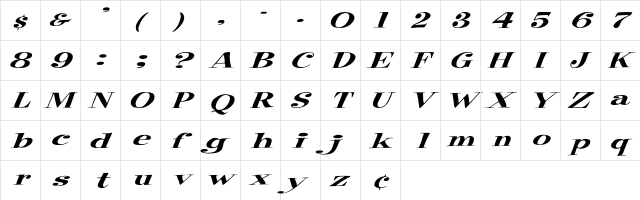
PixieFont Ex ITALIC Italic
PixieFont Ex ITALIC is a composed and adaptable typeface that performs quietly and consistently across a wide range of design contexts. The dynamic lean of this cut emphasises speed and emphasis in any layout.